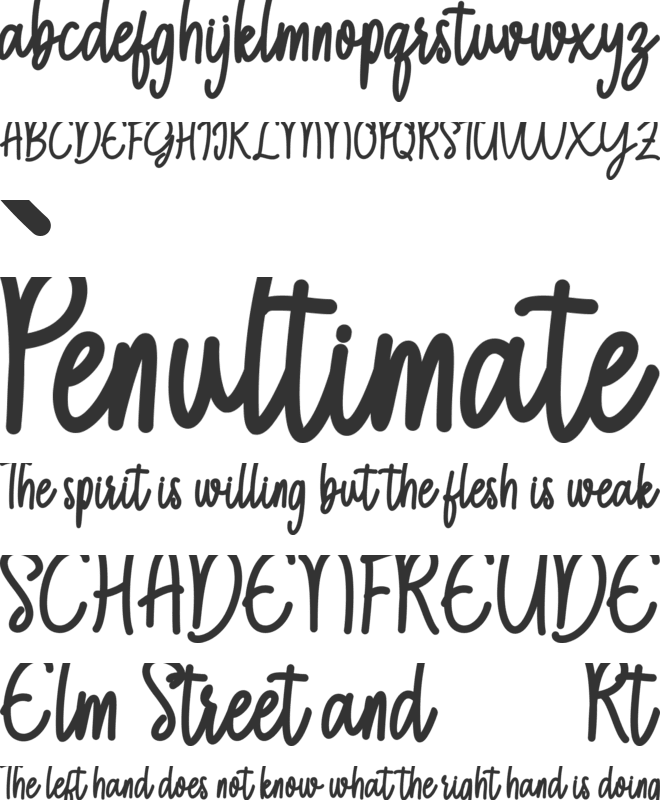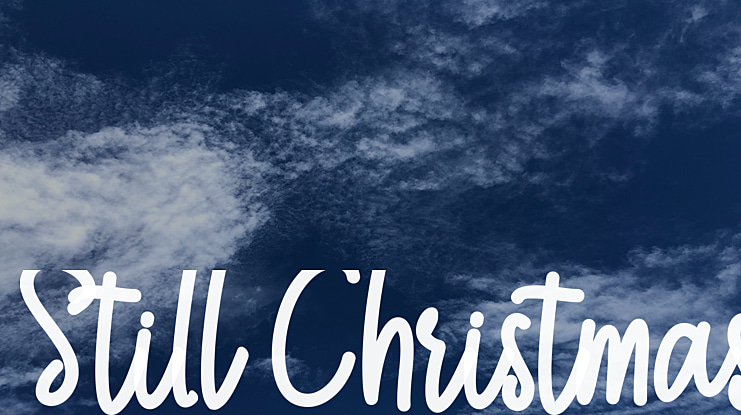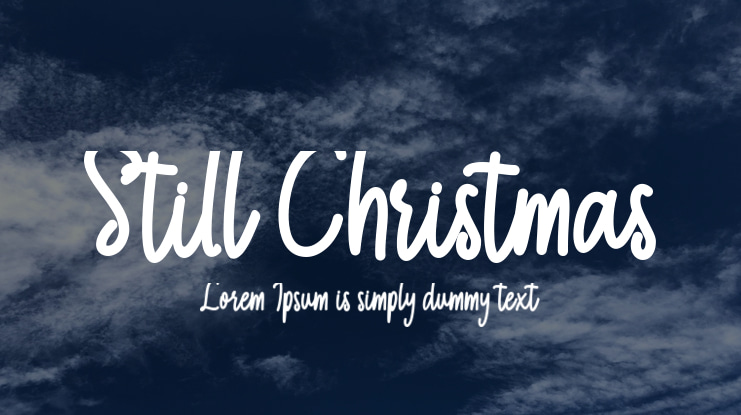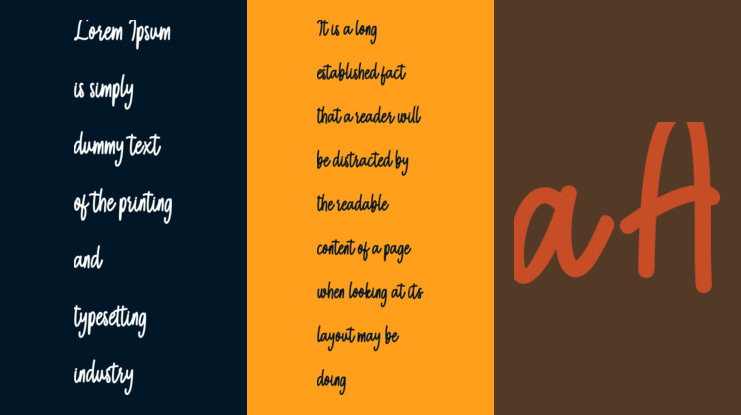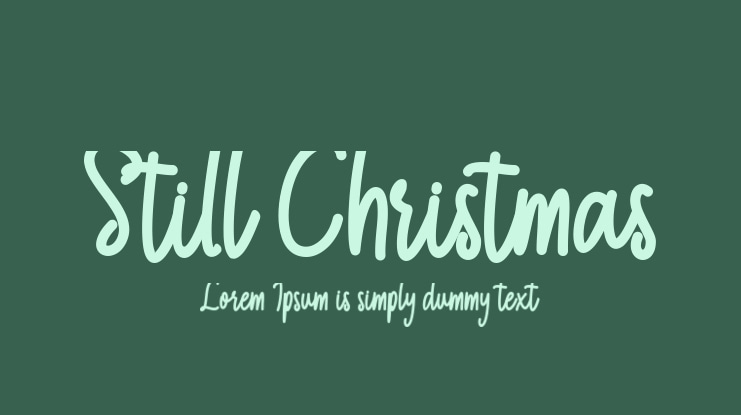
Still Christmas Font
Still Christmas is a lovely script font featuring charming, playful characters that seem to dance along the baseline. This font is PUA encoded which means you can access all glyphs and swashes with ease!